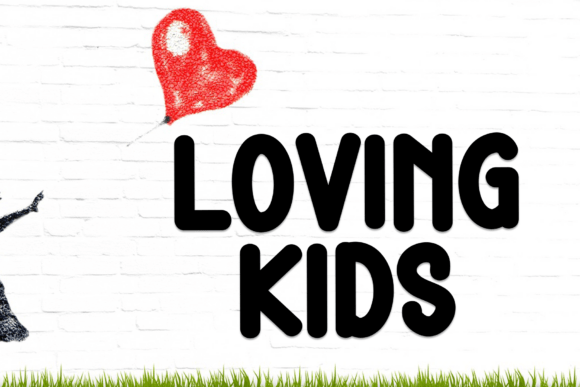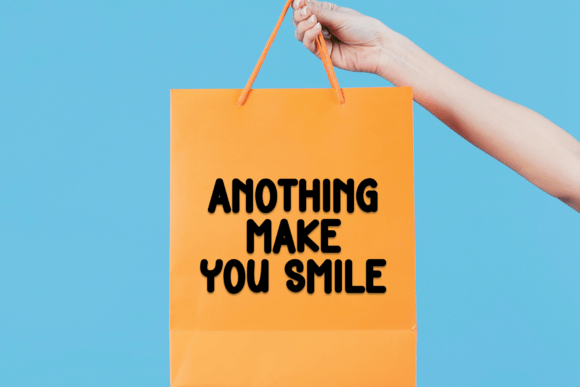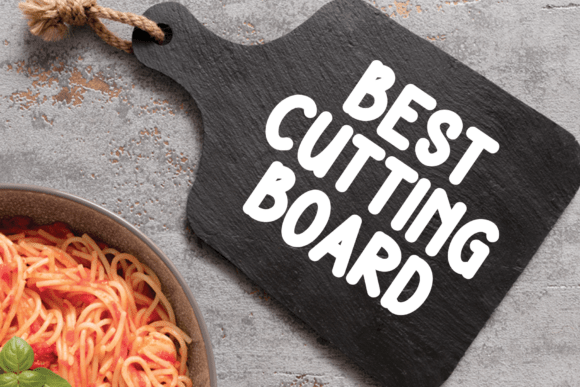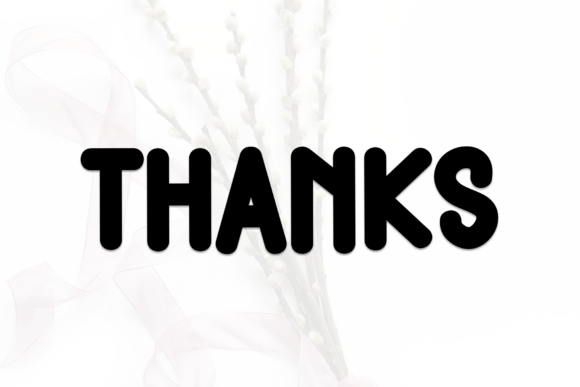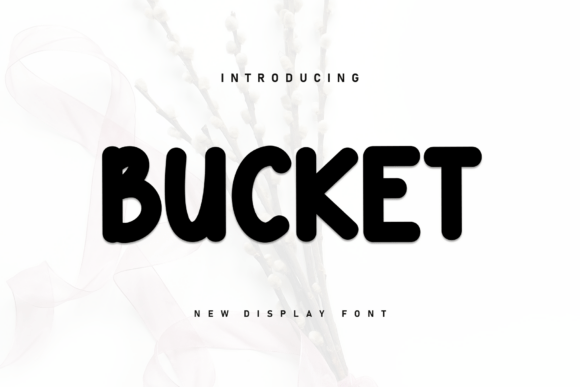
Introducing Bucket Font: The Sweet and Beautiful Handwritten Display Font
Are you looking for a font that can add a touch of coziness and warmth to your design projects? Look no further than Bucket Font! This sweet and beautiful handwritten display font is perfect for designers and crafters who want to create unique and eye-catching designs. In this article, we’ll take a closer look at Bucket Font, its features, and how you can use it to elevate your design projects.
What is Bucket Font?
Bucket Font is a handwritten display font that features characters that dance along the baseline, giving it a playful and whimsical feel. The font is designed to add a cozy accent to any design project, making it perfect for a variety of applications, from branding and packaging to invitations and social media graphics.
Key Features of Bucket Font
• Handwritten display font: Bucket Font is a carefully crafted handwritten font that mimics the look and feel of handwritten text.
• Characters that dance along the baseline: The font features characters that dance along the baseline, giving it a playful and whimsical feel.
• Cozy and warm feel: Bucket Font has a cozy and warm feel that makes it perfect for designs that require a personal touch.
• Easy to read: Despite its playful feel, Bucket Font is easy to read, making it perfect for use in a variety of applications.
How to Use Bucket Font in Your Design Projects
Bucket Font is a versatile font that can be used in a variety of design projects. Here are some ideas to get you started:
• Branding and packaging: Use Bucket Font to create unique and eye-catching branding and packaging designs that stand out from the crowd.
• Invitations and events: Add a touch of coziness and warmth to your invitations and event designs with Bucket Font.
• Social media graphics: Use Bucket Font to create engaging and eye-catching social media graphics that grab attention.
• Blog and website design: Add a personal touch to your blog or website design with Bucket Font.
Tips for Using Bucket Font Effectively
Here are some tips for using Bucket Font effectively in your design projects:
• Use it sparingly: Bucket Font is a display font, so use it sparingly to add emphasis and create visual interest.
• Pair it with other fonts: Pair Bucket Font with other fonts to create a unique and visually appealing font combination.
• Experiment with colors and textures: Experiment with different colors and textures to add depth and interest to your designs.
Bucket Font is a sweet and beautiful handwritten display font that can add a touch of coziness and warmth to any design project. With its playful and whimsical feel, it’s perfect for designers and crafters who want to create unique and eye-catching designs. Whether you’re working on branding and packaging, invitations and events, social media graphics, or blog and website design, Bucket Font is a great choice. So why not give it a try and see how it can elevate your design projects?